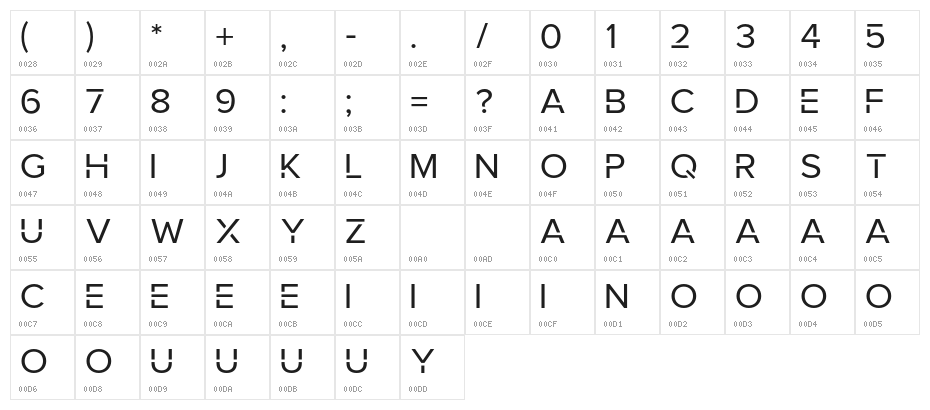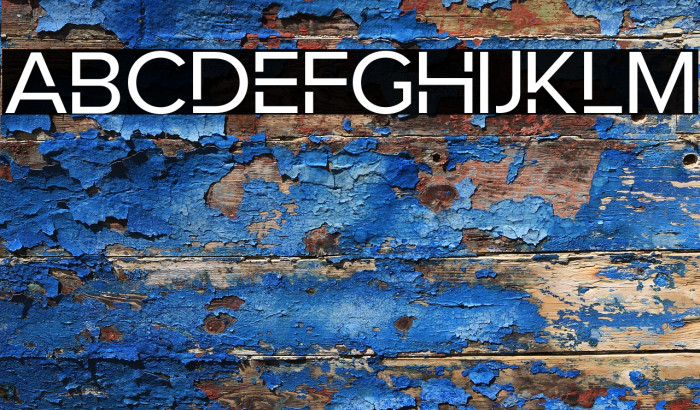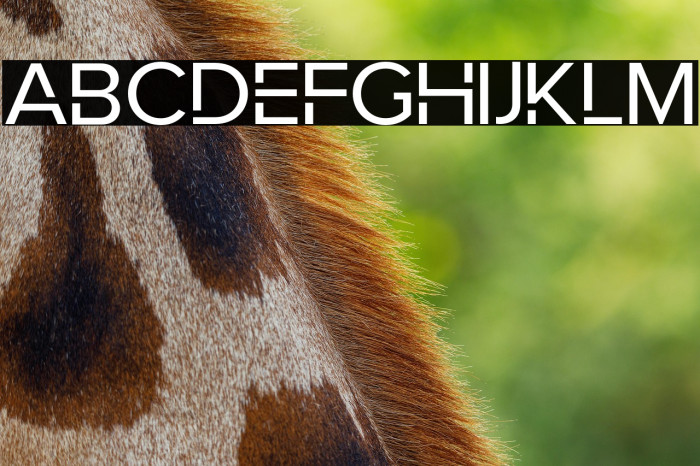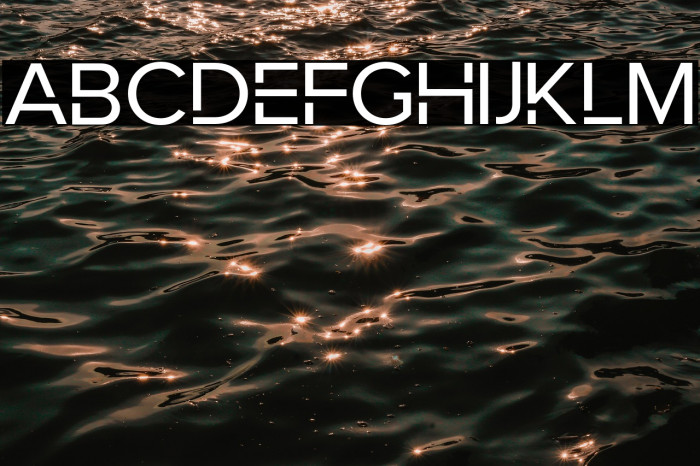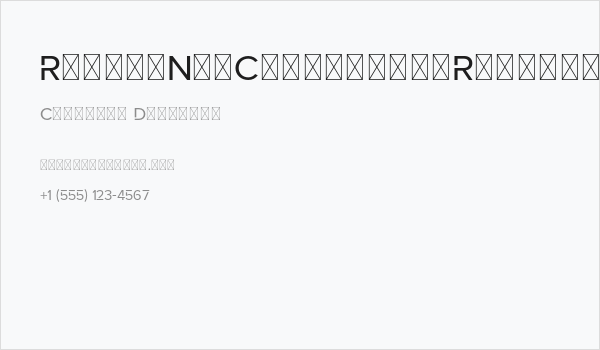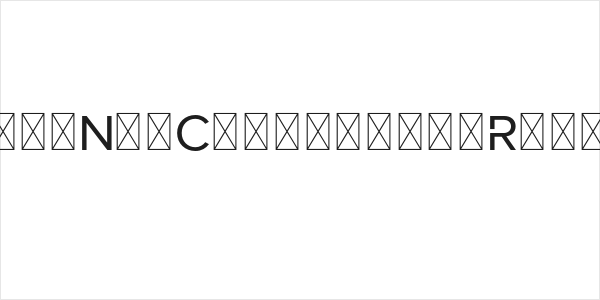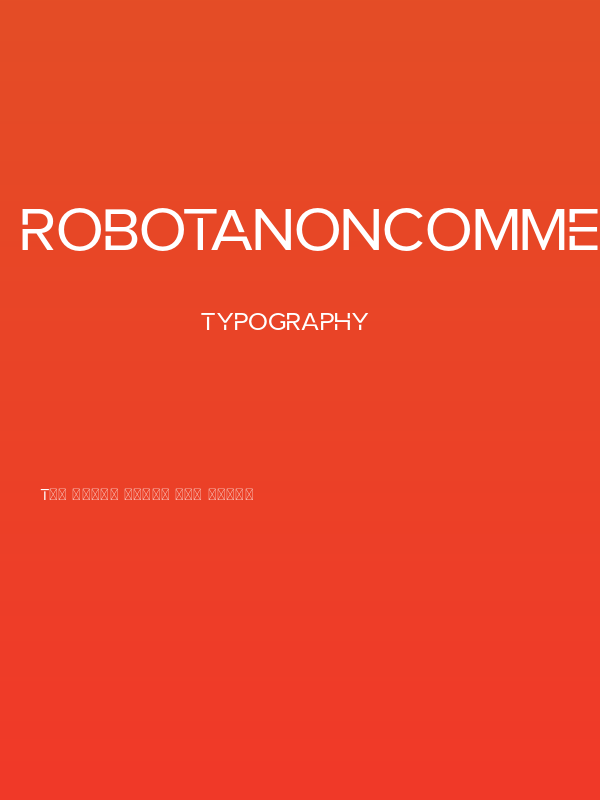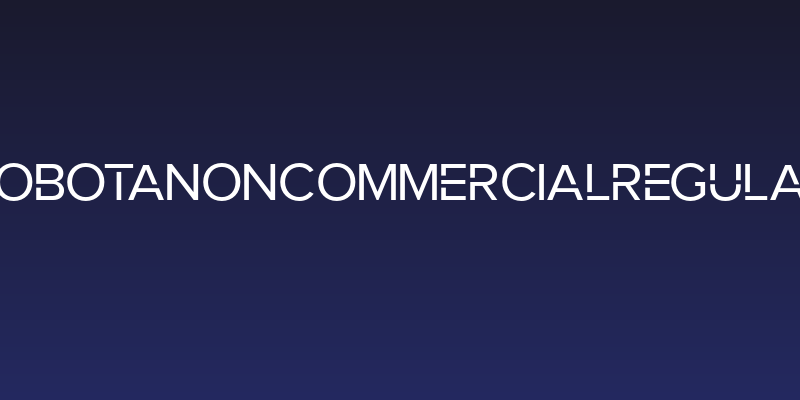
RobotaNonCommercialRegular Font
RobotaNonCommercialRegular Description
This font features a modern and geometric sans-serif design, characterized by clean lines and a minimalist aesthetic. The uppercase letters are bold and structured, with a consistent stroke width that conveys a sense of stability and precision. The numerals are clear and legible, making them suitable for various applications. The overall design is sleek and contemporary, with a focus on functionality and readability. The absence of serifs and the uniformity in stroke width give it a streamlined appearance, ideal for digital and print media.